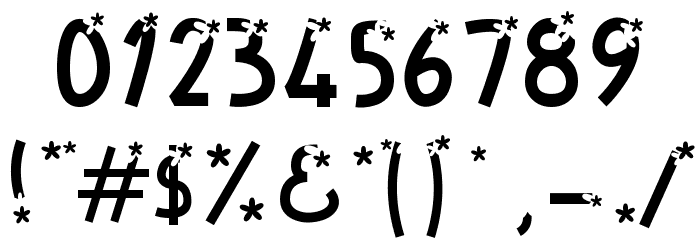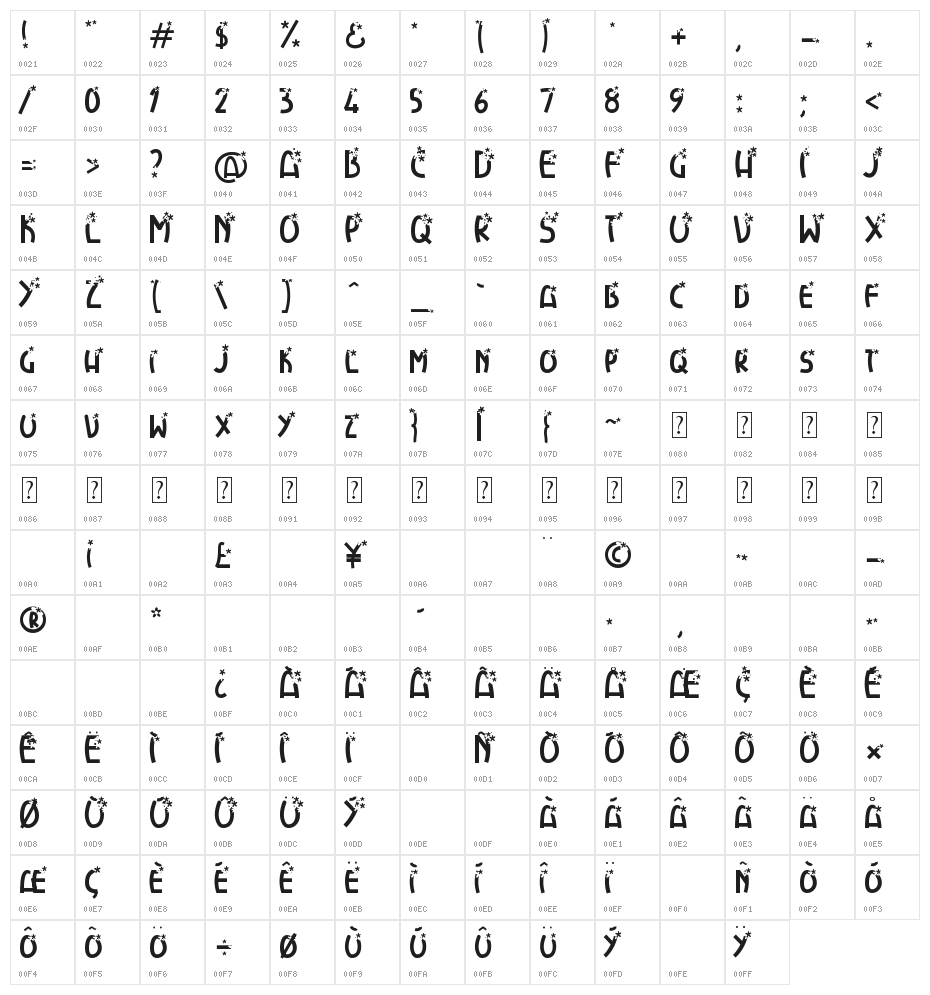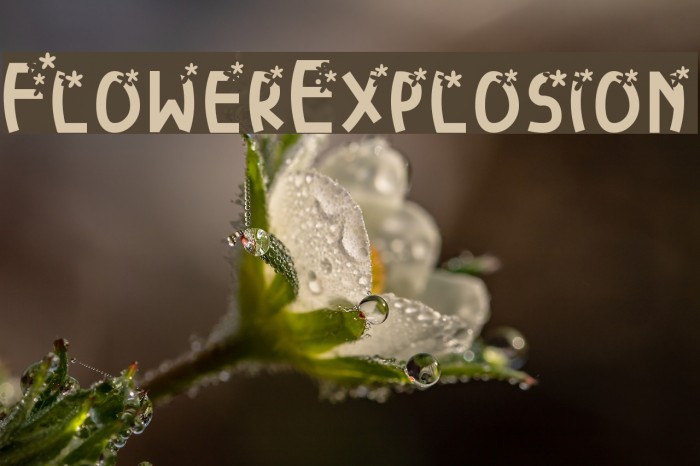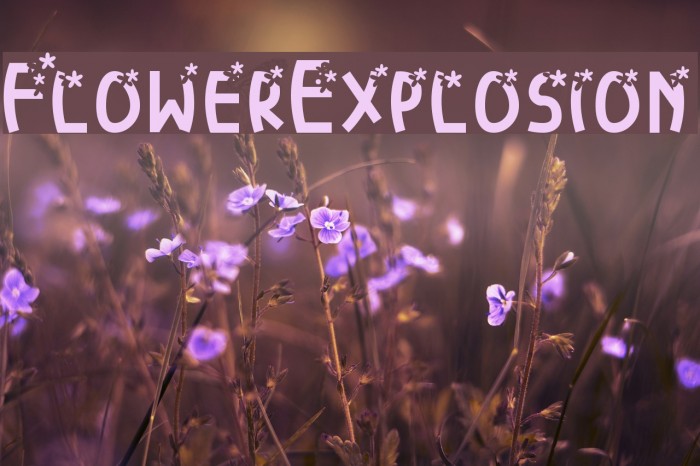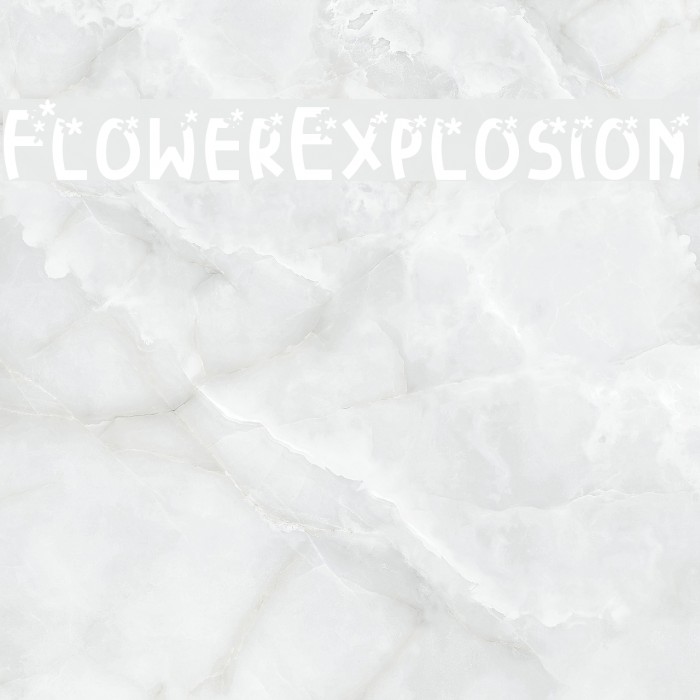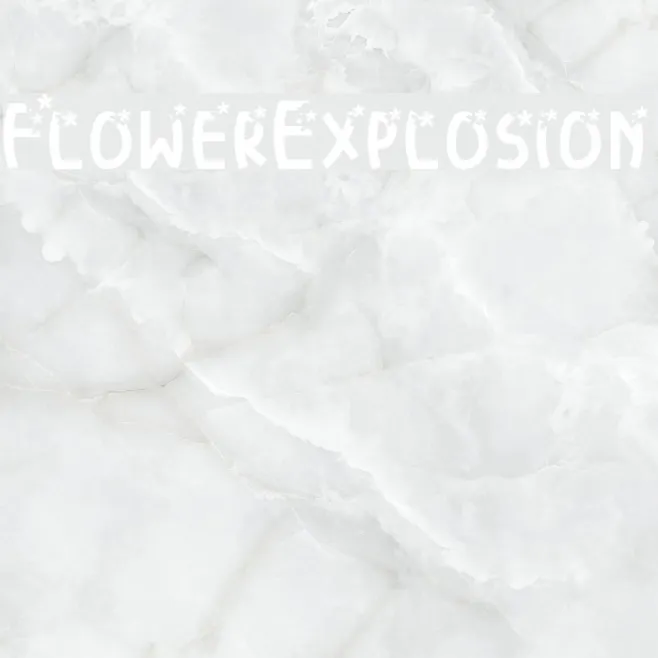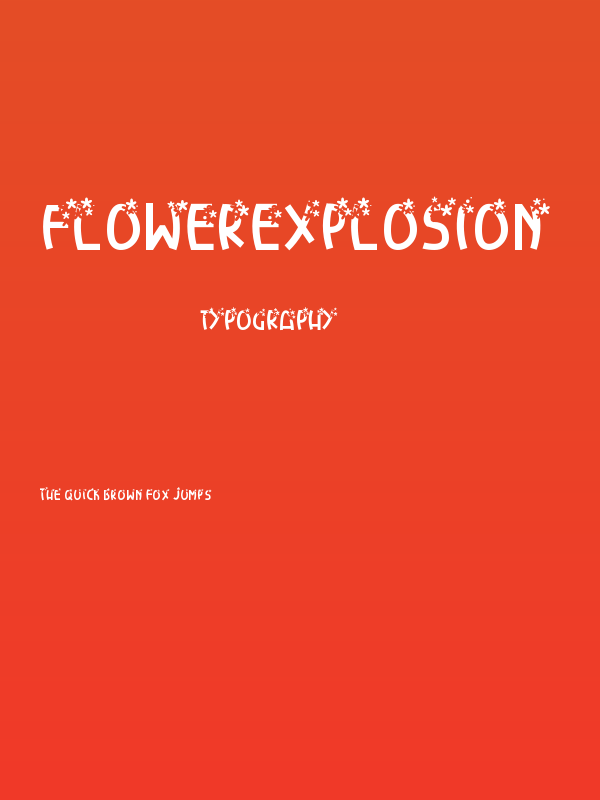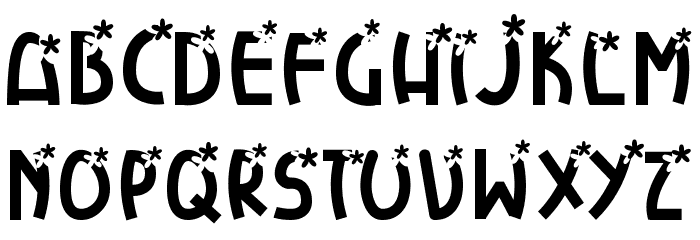
FlowerExplosion Font
FlowerExplosion Description
This playful and decorative font features bold, rounded characters adorned with small flower-like asterisks at the top, adding a whimsical touch to each letter and number. The uppercase and lowercase letters maintain a consistent style, with a slight slant that gives a dynamic and lively appearance. The numbers follow the same design principles, ensuring uniformity across the font. Special characters are also included, each embellished with the same floral accents, making this font ideal for creative and fun projects. The overall style is unique and eye-catching, perfect for capturing attention.
| Proposed Projects | Ideal for children's books, party invitations, playful branding, and creative posters. |